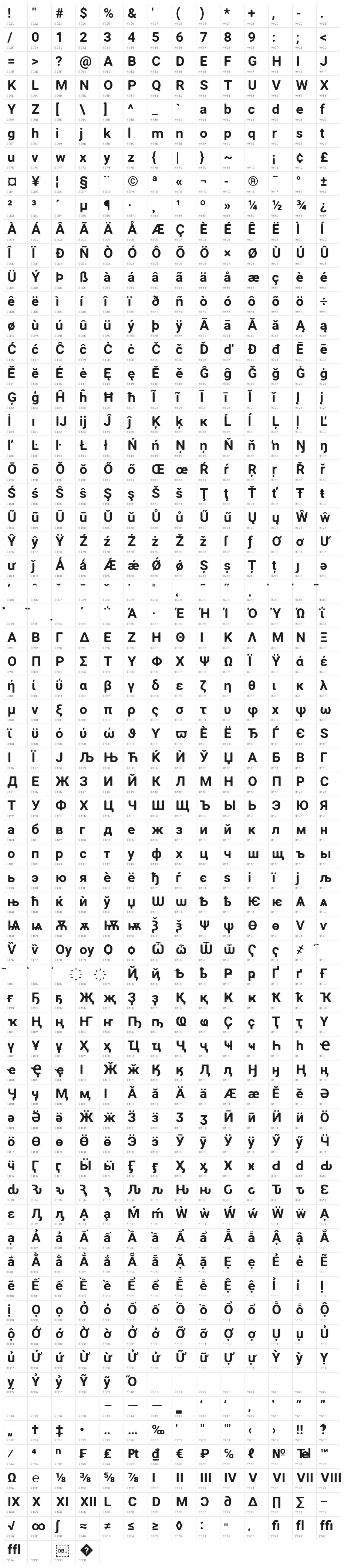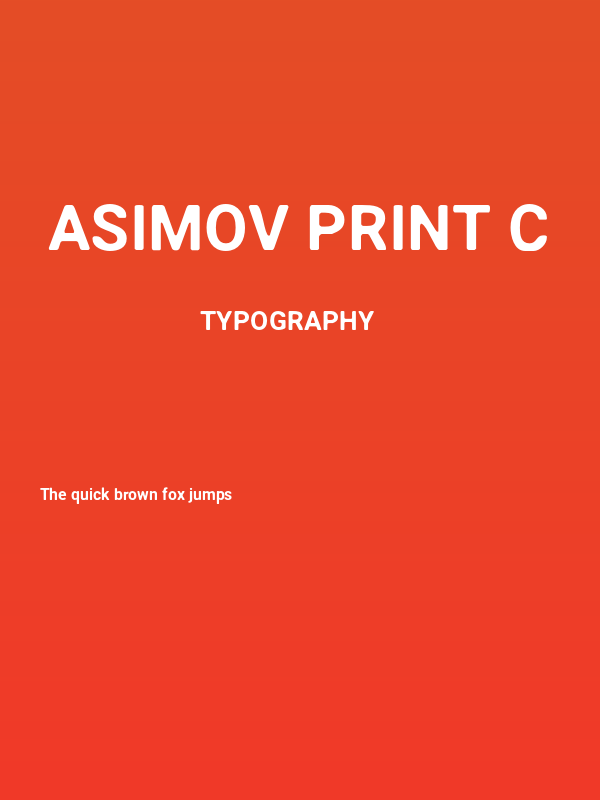
Asimov Print C Font
Asimov Print C Description
This font features a clean and modern sans-serif design, characterized by its bold and uniform stroke width. The letters are well-proportioned with a slightly rounded appearance, giving it a friendly yet professional look. The uppercase and lowercase letters maintain a consistent style, ensuring readability across various sizes. The numerals are clear and distinct, making them suitable for both display and text purposes. Special characters are included, enhancing its versatility for different applications. Overall, the font exudes a contemporary feel, making it ideal for modern design projects.
| Proposed Projects | Ideal for branding, advertising, web design, and editorial projects where a modern and clean look is desired. |